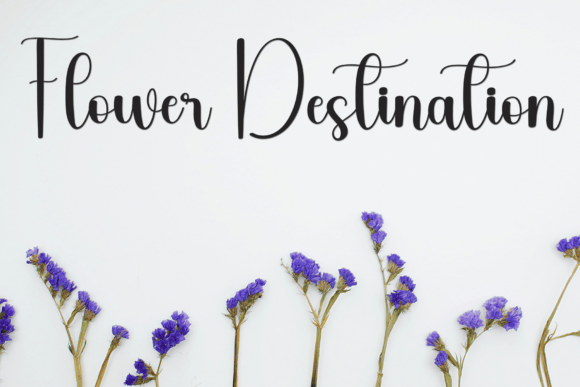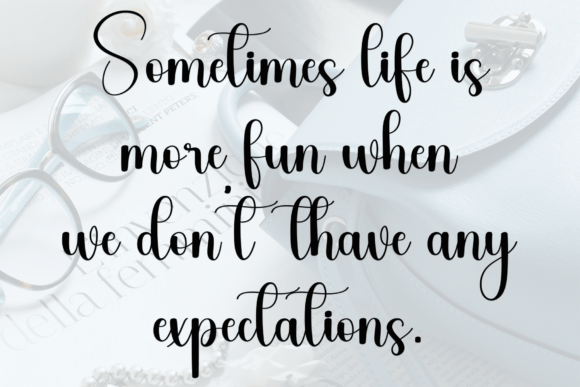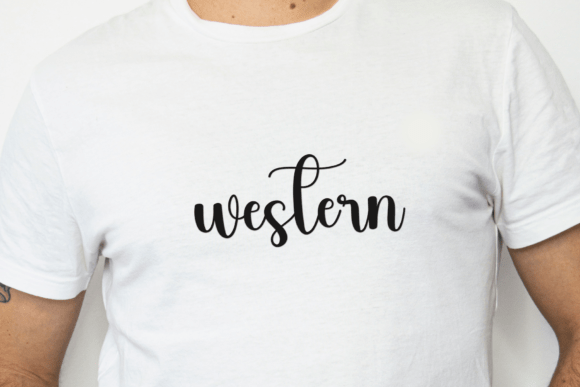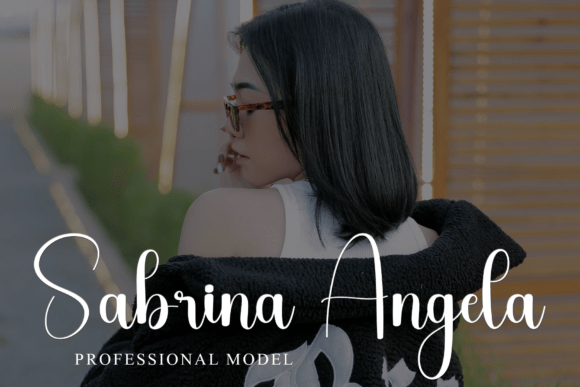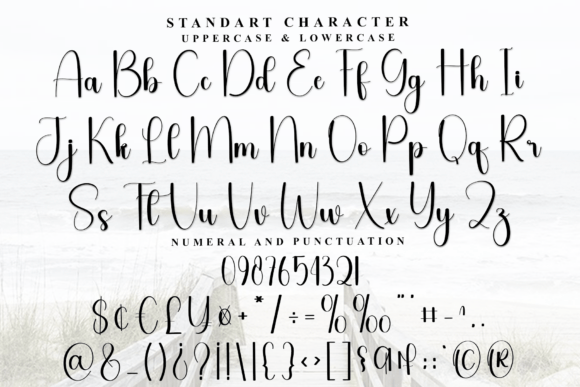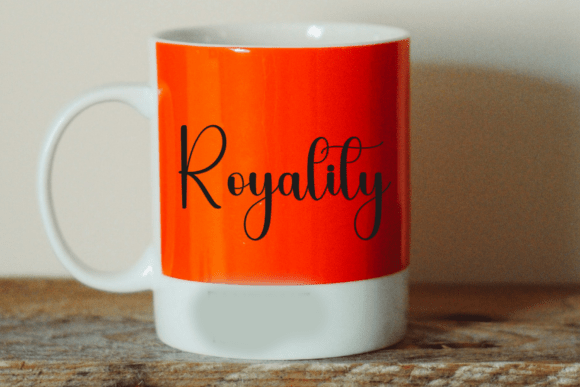
Introducing Graduation Font: The Perfect Choice for Designers and Crafters
Are you looking for a font that can add a touch of elegance and uniqueness to your design projects? Look no further than Graduation Font. This beautiful and eye-catching font is designed with a soft, unique touch that sets it apart from other fonts. Its distinctive strokes give it a special character, making it meaningful and versatile for future use.
What Makes Graduation Font Special?
Graduation Font is a one-of-a-kind font that is perfect for designers and crafters who want to add a personal touch to their work. The font’s soft and unique design makes it stand out from other fonts, and its distinctive strokes give it a special character that is sure to capture the attention of your audience. Whether you’re working on a design project, craft, or other creative work, Graduation Font is the perfect choice.
Key Features of Graduation Font
- Unique and Eye-Catching Design: Graduation Font has a soft and unique design that sets it apart from other fonts.
- Distinctive Strokes: The font’s distinctive strokes give it a special character that makes it meaningful and versatile for future use.
- Various Characters: Graduation Font comes with a wide range of characters, making it perfect for design projects, crafts, and other creative works.
Graduation Font is perfect for designers and crafters who want to add a personal touch to their work. The font’s unique and eye-catching design makes it ideal for a wide range of design projects, including:
- Logo Design: Use Graduation Font to create a unique and memorable logo for your brand.
- Brochure Design: Add a touch of elegance to your brochures with Graduation Font.
- Social Media Graphics: Use Graduation Font to create eye-catching social media graphics that will capture the attention of your audience.
- Crafts: Graduation Font is also perfect for crafters who want to add a personal touch to their work, such as handmade cards, invitations, and scrapbooking.
Benefits of Using Graduation Font
Using Graduation Font can bring a range of benefits to your design projects and crafts. Some of the benefits include:
- Enhanced Visual Appeal: Graduation Font’s unique and eye-catching design can enhance the visual appeal of your design projects and crafts.
- Increased Engagement: The font’s distinctive strokes and special character can increase engagement with your audience.
- Versatility: Graduation Font is versatile and can be used for a wide range of design projects and crafts.
Graduation Font is a beautiful and eye-catching font that is perfect for designers and crafters who want to add a personal touch to their work. Its unique and eye-catching design, distinctive strokes, and versatility make it an ideal choice for a wide range of design projects and crafts. With its compatibility with various applications, Graduation Font is a must-have font for any designer or crafter.